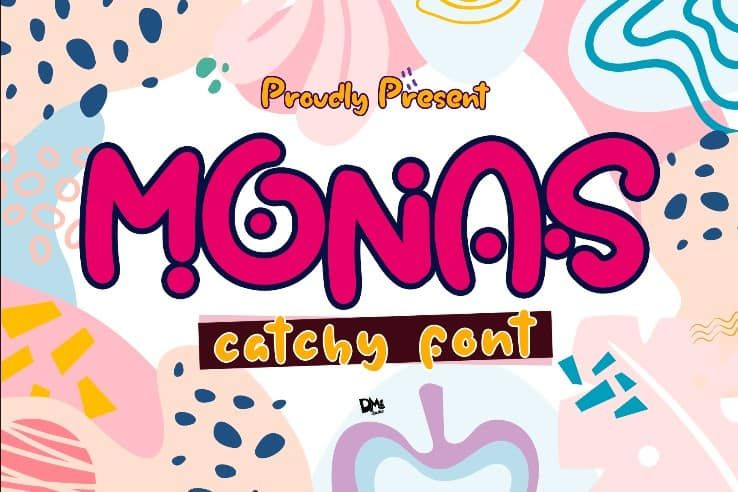
Monas – Catchy Font
The Monas Catchy Font is a bold and eye-catching typeface that demands attention with its unique and captivating design. With its strong letterforms and distinctive style, this font adds a touch of excitement and flair to your headlines, logos, posters, and other attention-grabbing projects.
1. Catchy and Bold Style: The Monas Font exudes a catchy and impactful aesthetic. Its bold letterforms and distinctive design make it stand out from the crowd, creating a memorable and attention-grabbing look for your designs.
2. Unique and Captivating Design: The font’s striking and unconventional design adds a touch of excitement and flair to your typography. It sets your headlines and text apart with its one-of-a-kind appeal, making it perfect for projects that require a standout and memorable font.
3. Versatile Application: This font is versatile and well-suited for various design projects that aim to make a statement and create a lasting impression. Use it in logos, posters, social media graphics, branding, and more to add a bold and impactful element to your designs.
4. Uppercase and Lowercase Letters: The font includes both uppercase and lowercase letters, providing flexibility and creative freedom in your designs. Mix and match the cases to create visually appealing and dynamic typography.
5. Punctuation and Symbols: In addition to the alphabet, the Monas Font includes a comprehensive set of punctuation marks, numerals, and common symbols. This ensures consistency and ease of use when incorporating the font into your design projects.
Make a statement with the Monas Catchy Font. Let its bold and distinctive design command attention and create a lasting impression on your headlines, logos, and posters. Embrace the eye-catching nature of this font and create designs that leave a lasting impact on your audience.